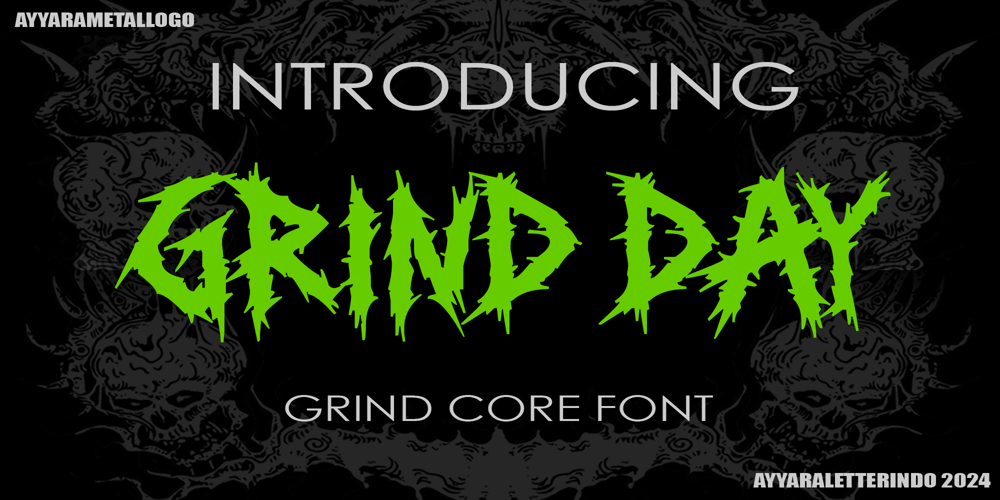
Grind Day Font Family was designed by published by Ayyara Letterindo. Grind Day contains 1 styles and family package options. Grind Day is a Grind core font, you can immediately make your band logo, or brand logo name, horror poster or halloween poster, apparel design for your bussiness own with the help of this unique Grind Day font, you can combine it with the others metal or horror ornaments and make your cool design with easy and fast.